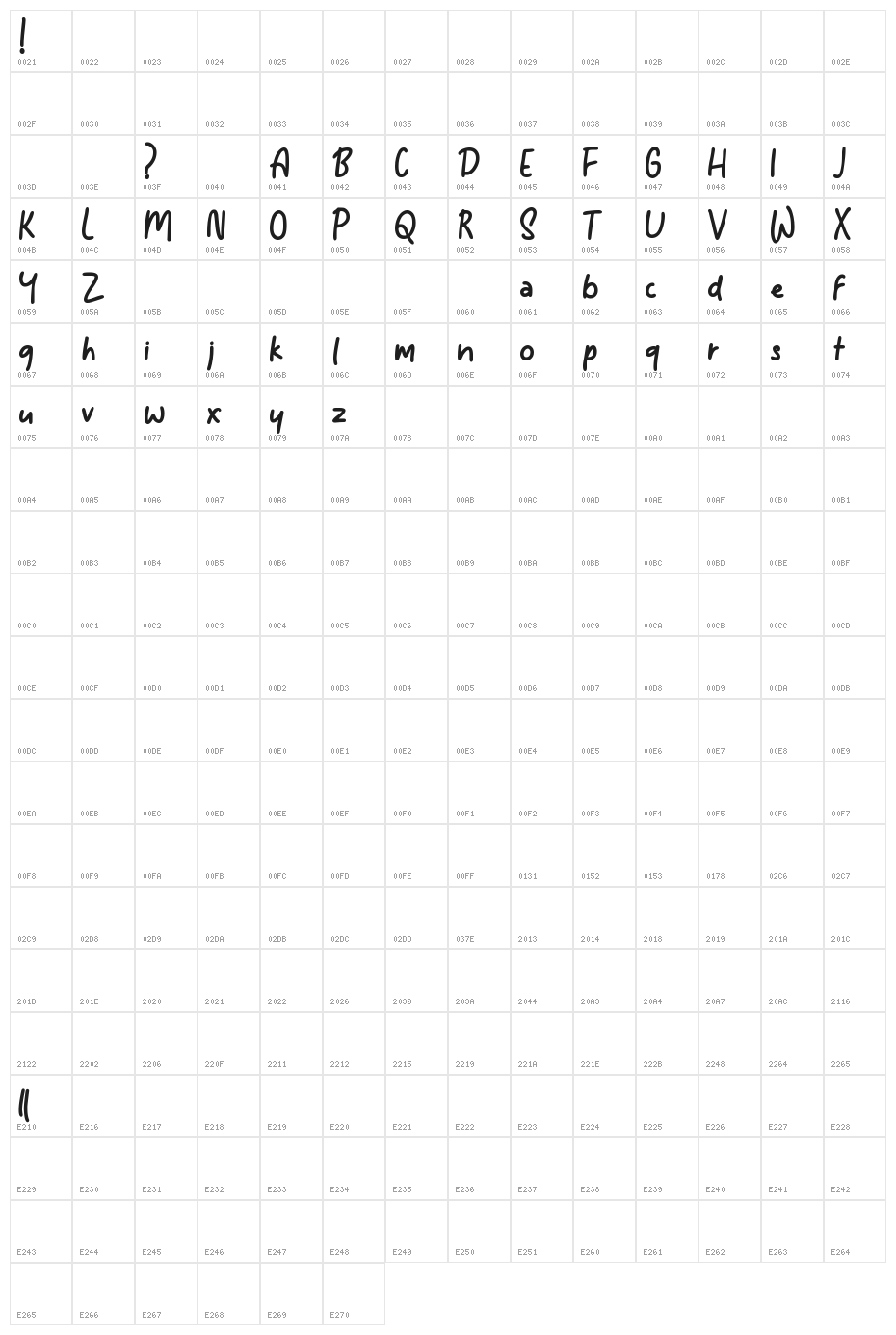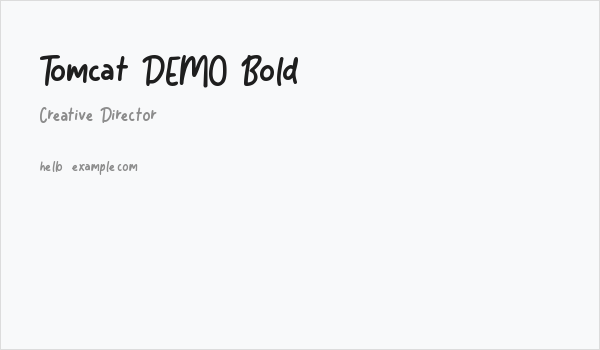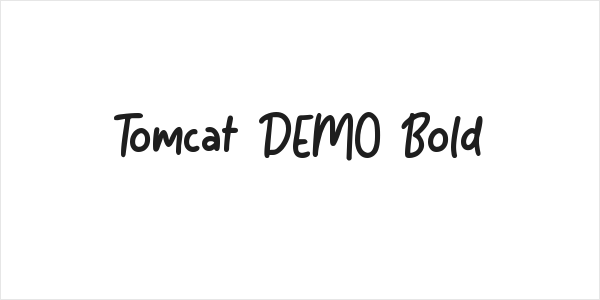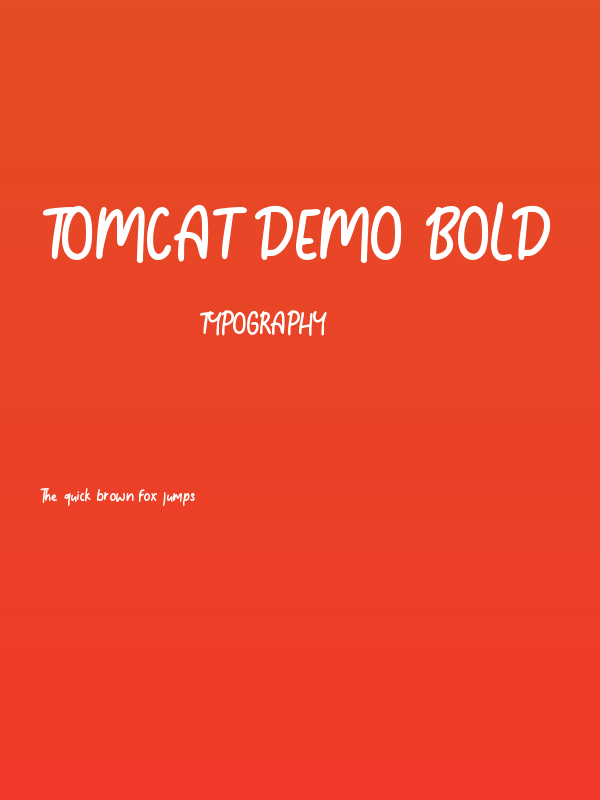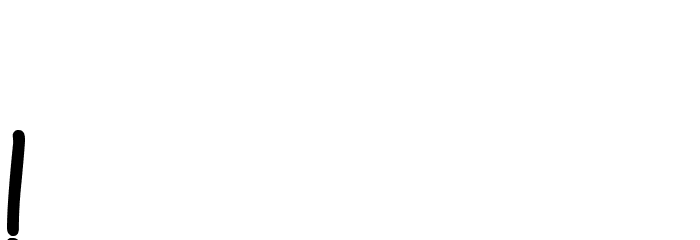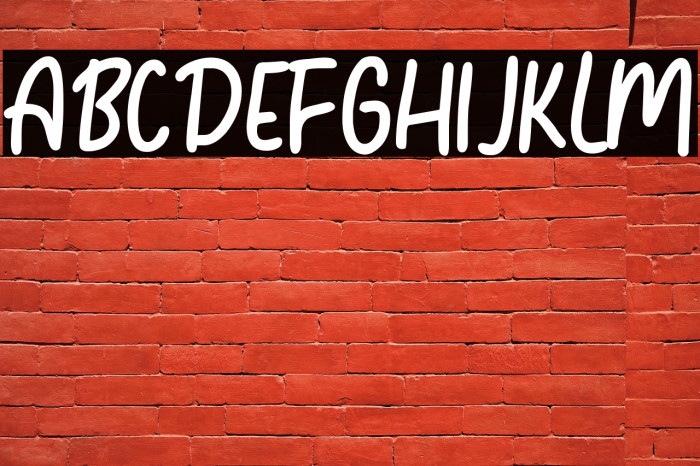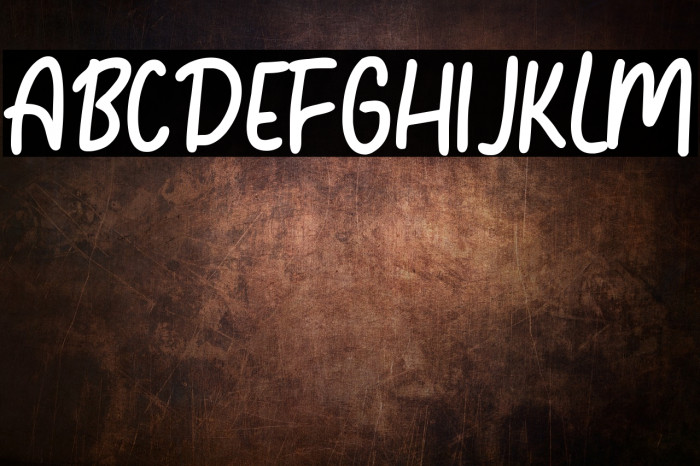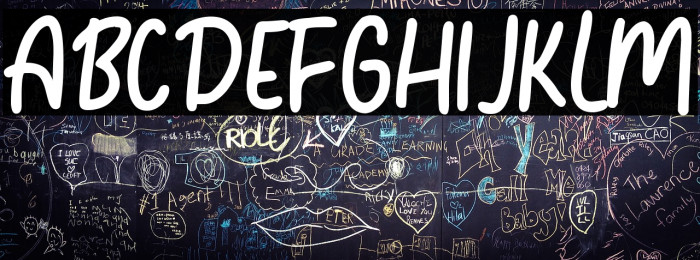
Tomcat DEMO Bold Font
Tomcat DEMO Bold Description
This font features a bold, handwritten style with smooth, rounded edges and a playful, casual appearance. The uppercase letters are tall and slightly narrow, while the lowercase letters maintain a consistent height, giving the font a cohesive look. The strokes are thick and uniform, contributing to its boldness. The font has a friendly and approachable feel, making it suitable for informal and creative projects. The spacing between characters is normal, ensuring readability while maintaining its unique style.
| Use Case | Logos, Headlines, Informal Text |
| Proposed Projects | Ideal for greeting cards, children's books, playful branding, and social media graphics. |